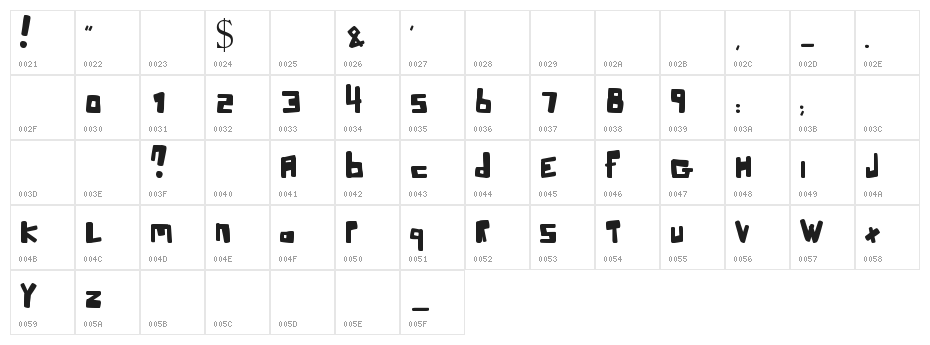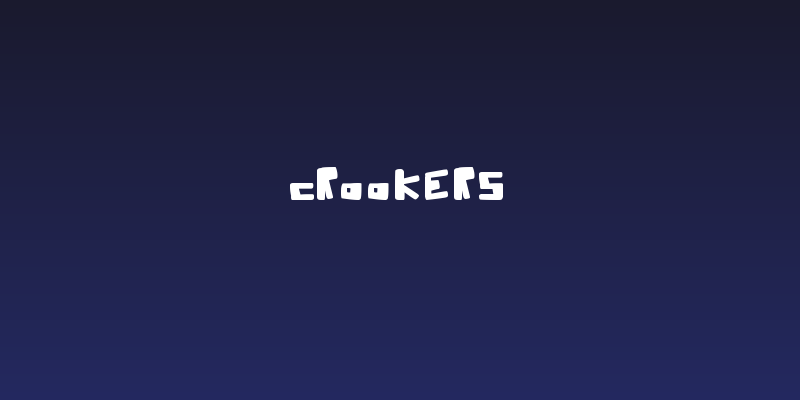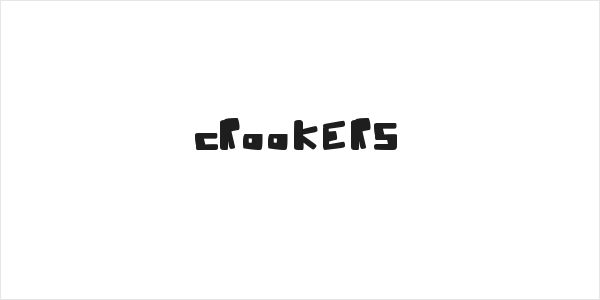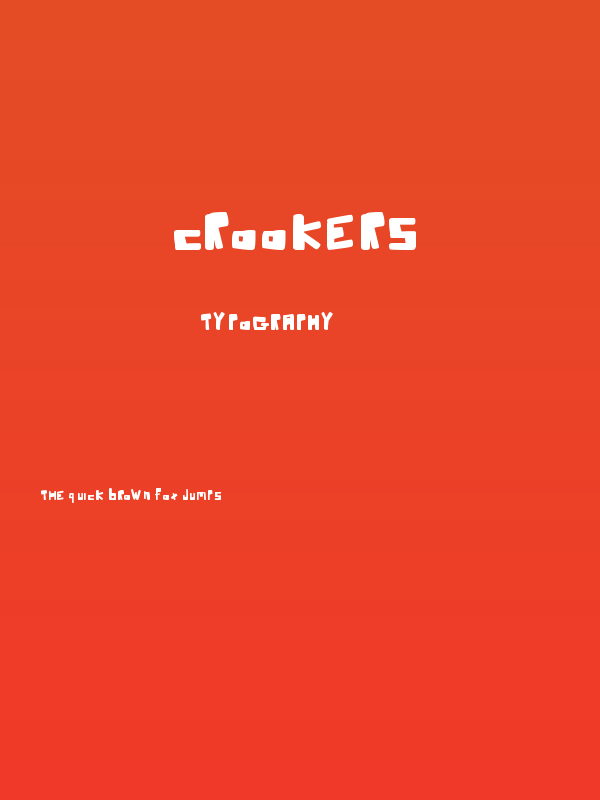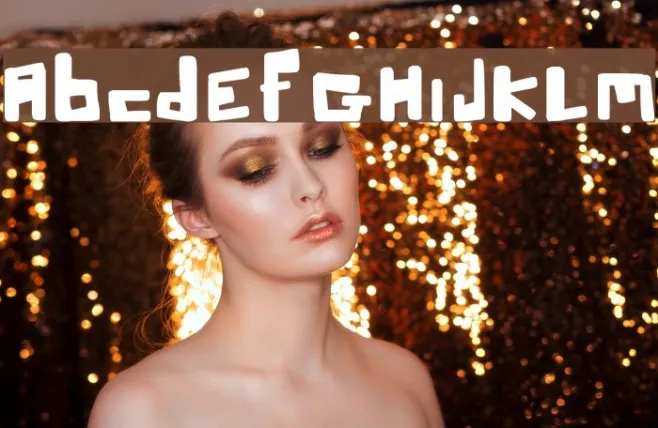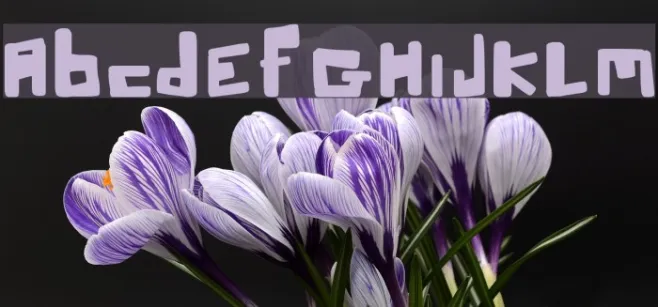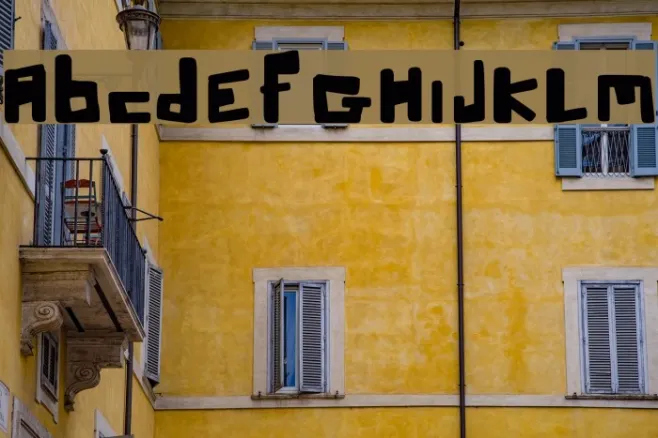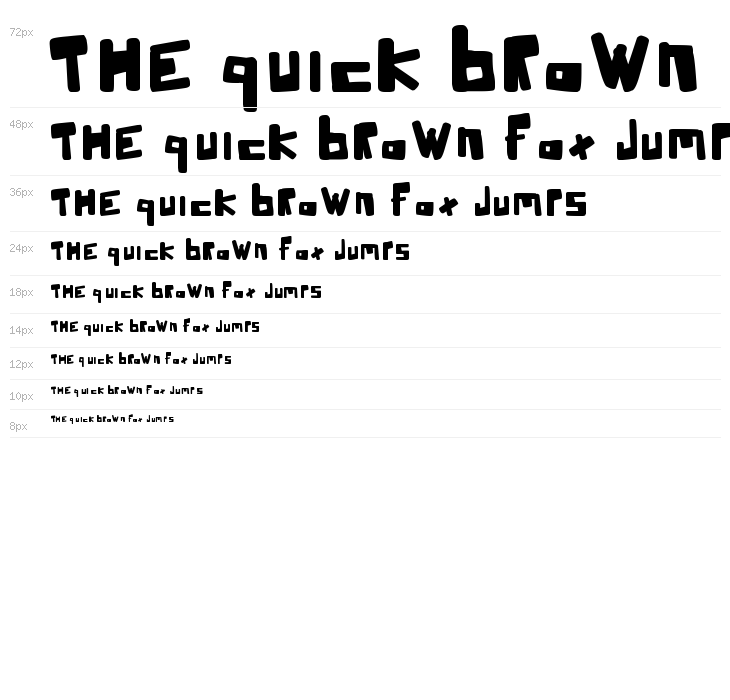
crookers Font
crookers Description
This font features a playful and bold style with a hand-drawn appearance. The characters are slightly irregular, giving it a casual and informal look. The uppercase and lowercase letters maintain a consistent thickness, while the numbers and special characters follow the same quirky design. The overall aesthetic is reminiscent of graffiti or street art, making it ideal for projects that require a fun and energetic vibe. The font's unique character shapes and bold presence make it stand out, perfect for creative and artistic applications.
CROOKERS UPPERCASE
CROOKERS LOWERCASE
CROOKERS OTHER CHARS
| Proposed Projects | Ideal for posters, album covers, street art designs, and creative branding. |